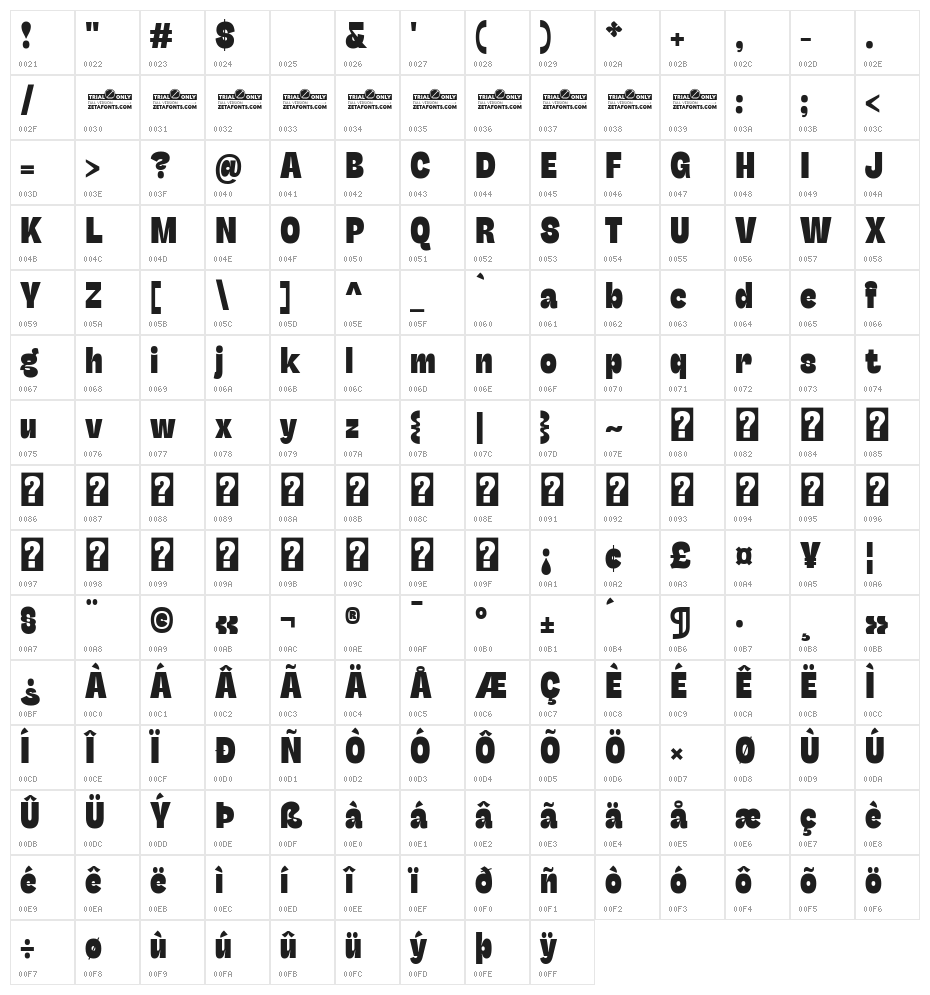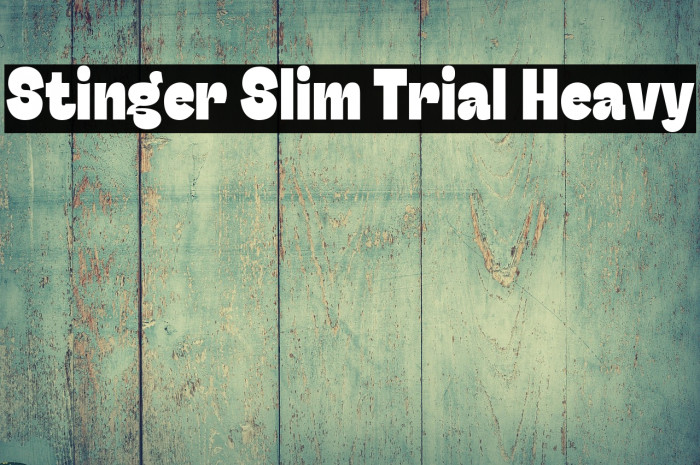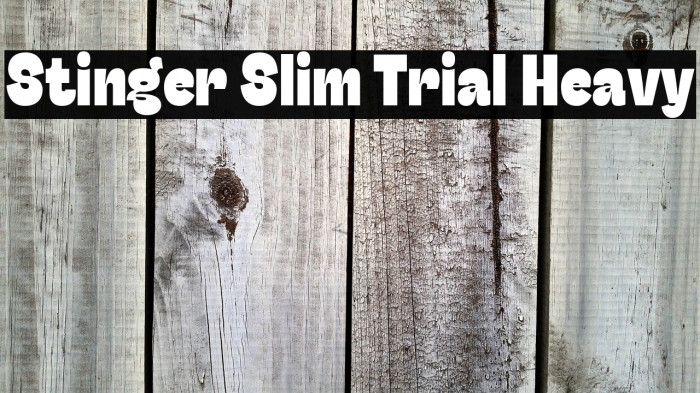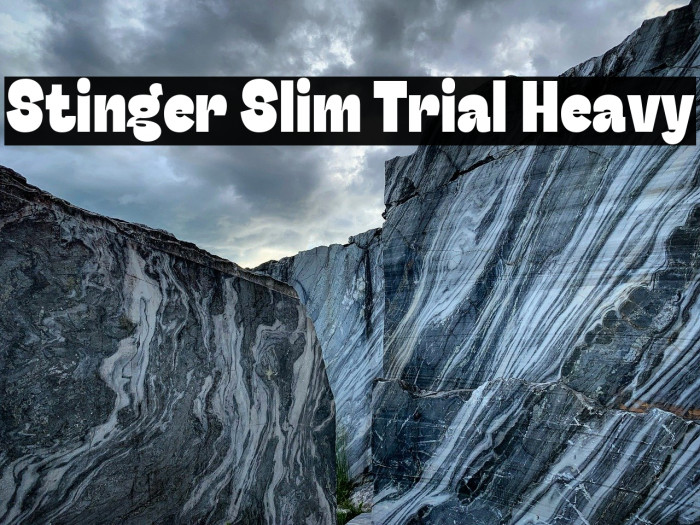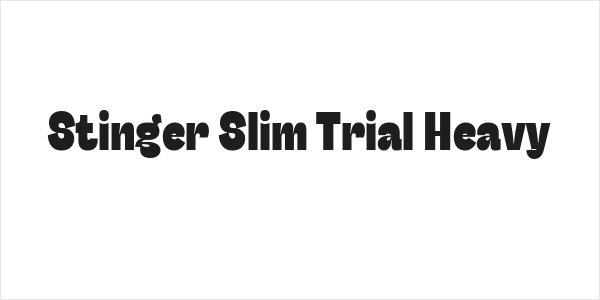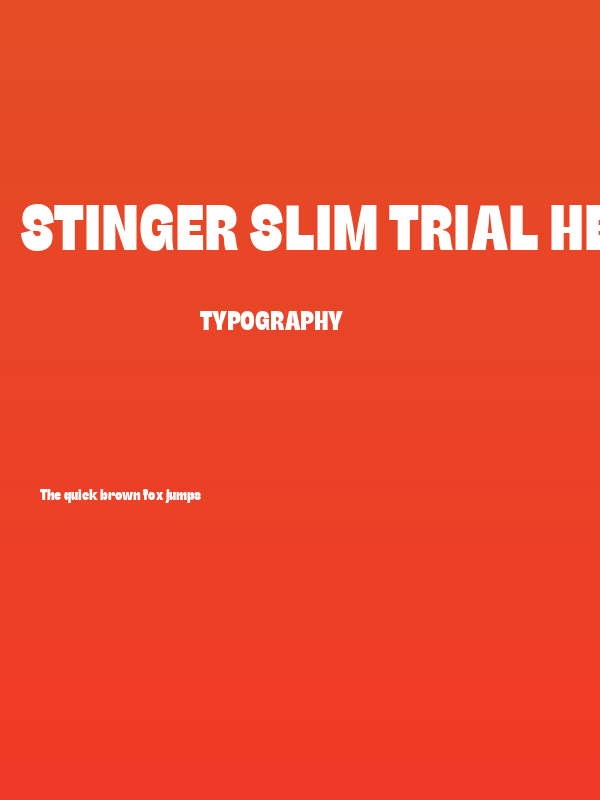
Stinger Slim Trial Heavy Font
Stinger Slim Trial Heavy Description
This font features a bold and impactful design, characterized by thick, heavy strokes and a strong presence. The uppercase letters are robust and commanding, while the lowercase letters maintain a consistent weight, providing a cohesive look. The font includes a full set of numerals and a variety of special characters, making it versatile for different uses. The overall style is modern and assertive, suitable for making a statement in any design. The characters are tightly spaced, enhancing the boldness and ensuring a compact appearance.